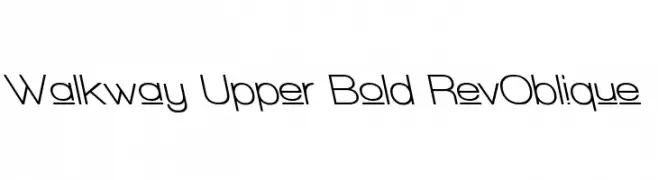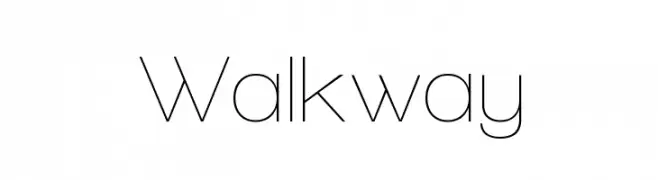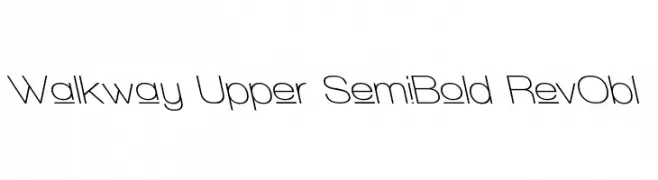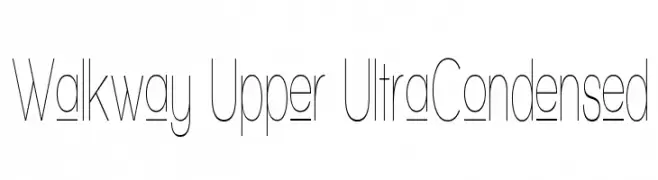
A bold, reverse oblique sans-serif font with a modern and dynamic style.
A modern, oblique font with clean lines and consistent stroke width.
A modern, semi-bold sans-serif font with a clean and geometric design.
A modern, geometric sans-serif font with a clean and minimalistic design.
A modern, oblique font with clean, geometric lines and consistent stroke width.
A sleek, semi-bold, modern font with low contrast and geometric shapes.
A modern, ultra-condensed sans-serif font with a sleek and minimalistic design.